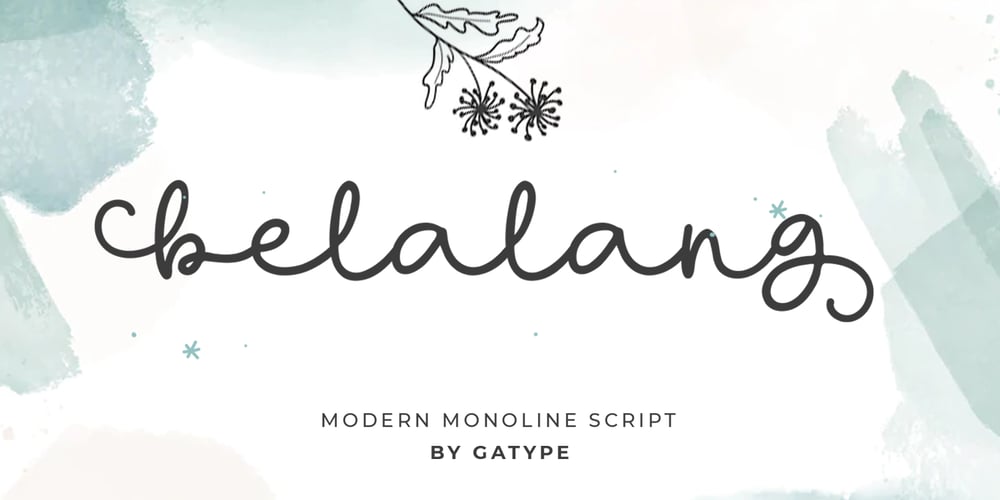
Belalang
Belalang font
Belalang Font Family was designed by khaidir and published by Gatype. Belalang contains 1 styles and family package options. Belalang Script is a beautiful mono-line font, perfect for logo design, branding, clothing design, signage, posters, wedding invitations, and more! My goal with this font was to create an easy-to-read script font that would work for a variety of purposes. Belalang script is encoded with PUA Unicode, which allows full access to all additional characters without having to design special software. Mac users can use Font Book , and Windows users can use Character Map to view and copy any additional characters to paste into your favorite text editor/application.How to access all alternative characters, using the Windows Character Map with Photoshop:https://www.youtube.com/watch?v=Go9vacoYmBwIf you have any questions, feel free to contact me via email: chaidirgata@gmail.comThank you very much for viewing and Enjoying it.